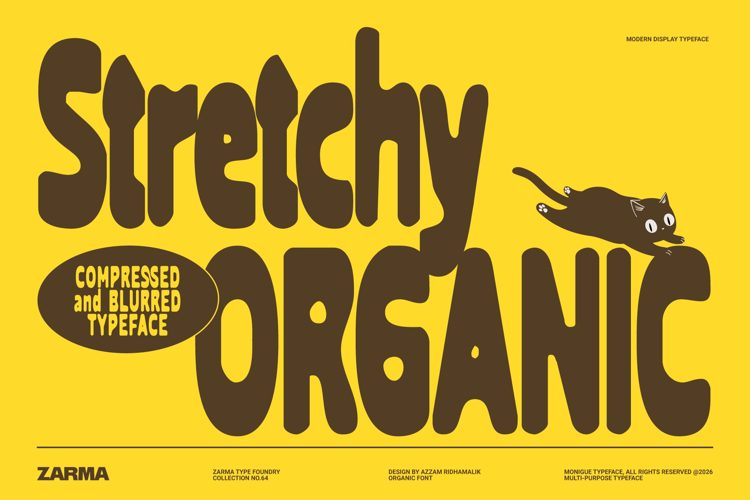
Stretchy Organic Font
There's a kind of energy that only lives in type that's been through something — type that looks like it was printed fast, rolled over rough paper, and left to dry in the heat. Stretchy Organic captures exactly that feeling. It's a rough compressed font shaped by the visual language of hand-crafted print culture: the soft blur of an over-inked stamp, the vertical tension of a tightly stacked billboard, the comfortable imperfection of letters that were never meant to be perfect. The compressed proportions pack serious mass into every headline, while the blurred organic edges keep the whole thing grounded in something human — something that feels made, not manufactured. Designers who've been hunting for a stretched bold font that sits naturally on packaging, on a poster, or on a tote bag without looking like it was generated in a template will find their answer here.
What makes Stretchy Organic genuinely rare is its range. It doesn't just work in one context — it owns every context you drop it into. Stack it tall for a burger joint poster and it reads bold and hungry. Spread it wide across a music event flyer and it channels analog counter-culture. Squeeze it onto a beverage can label and it carries a compressed brutalist authority that premium branding agencies charge a lot to fake. The organic blurred texture adds depth that flat fonts simply can't replicate — a lived-in roughness that makes every design feel like it's been around long enough to earn its credibility. This is the compressed display font for creatives who want their work to feel as authentic as the ideas behind it.